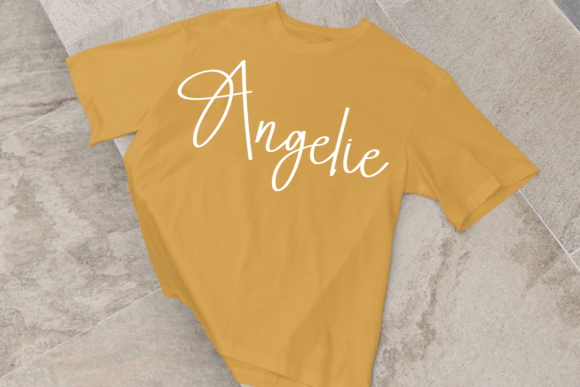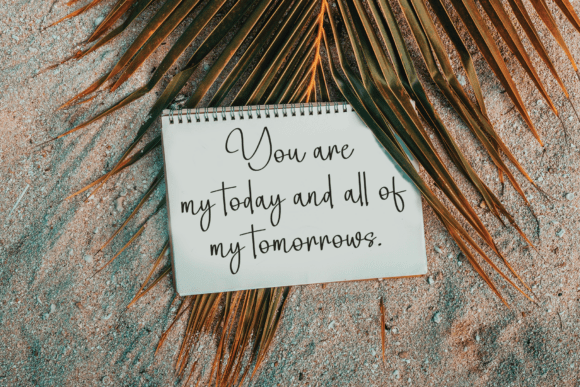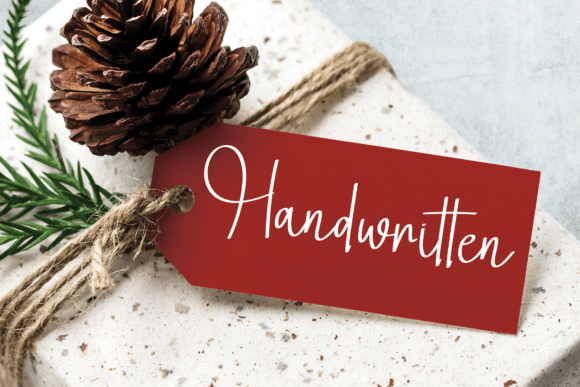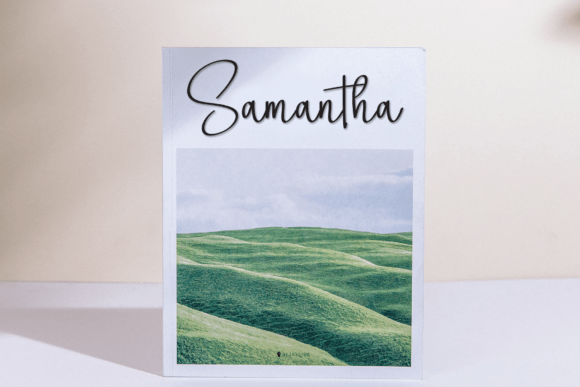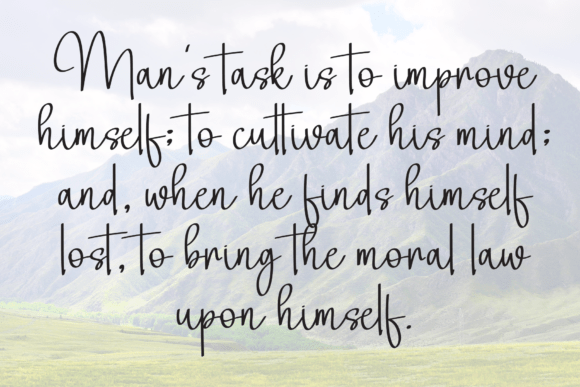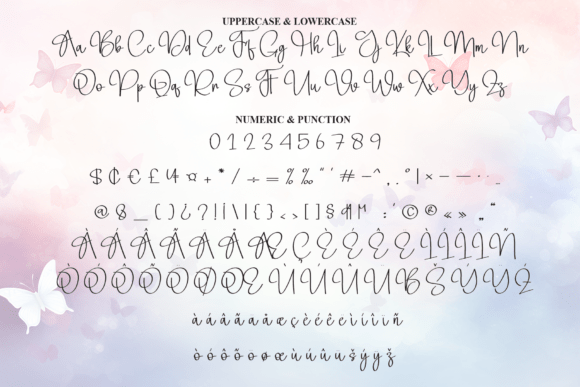
The Perfect Touch of Whimsy: Introducing the Butterfly Font
Have you ever been brainstorming a new design project, and the perfect font just slips through your fingers? You know, that elusive combination of elegance and playfulness that makes your work truly stand out? Well, we’ve got the solution for you: the Butterfly Font.
This charming font is specifically designed for creative projects that require a touch of whimsy and personality. Whether you’re crafting wedding invitations, social media logos, or product packaging, the Butterfly Font is sure to add that extra special something. With its versatility and unique character, it’s a valuable addition to any designer’s toolkit.
Key Features of Butterfly Font
- Unique Characteristics: The Butterfly Font features a unique blend of elegance and whimsy, with delicate, hand-drawn strokes and intricate details that evoke a sense of wonder and magic.
Designer Review: Butterfly Font
Overall, I was quite excited to dive into the Butterfly Font, but my experience was a mix of great and not-so-great moments. Let’s start with the positives: ✨
- Unique and creative design: The Butterfly Font truly stands out from the crowd with its unique and whimsical design. The subtle, wavy lines and curves evoke a sense of movement and freedom.
- Perfect for creative projects: I think this font would be a great fit for any project that requires a touch of whimsy and playfulness, such as children’s books, magazines, or social media graphics.
- Good legibility: Despite its ornate design, the Butterfly Font is surprisingly easy to read, especially at larger font sizes.
However, there are a few limitations that I want to highlight: ⚠️
- Not ideal for body text: While the font is perfect for headlines or titles, it may not be the best choice for body text, as it can be a bit overwhelming and difficult to read in large quantities.
- Limited font sizes: I found that the font works best at larger font sizes (around 24pt or higher), but at smaller sizes, the details get lost and it becomes difficult to read.
Overall, I’d say that the Butterfly Font is a great addition to any designer’s toolkit, but it’s best used in moderation and for specific projects that require its unique charm. With a little creativity and restraint, it can be a real showstopper.
Tips for Getting the Most Out of Butterfly Font
The Butterfly Font is a whimsical and elegant font that works well for titles, headings, and other decorative text. To get the most out of this font, use it sparingly to add visual interest and emphasize important information.
The Butterfly Font is commonly used for:
- Party and event branding
- Children’s book illustrations and design